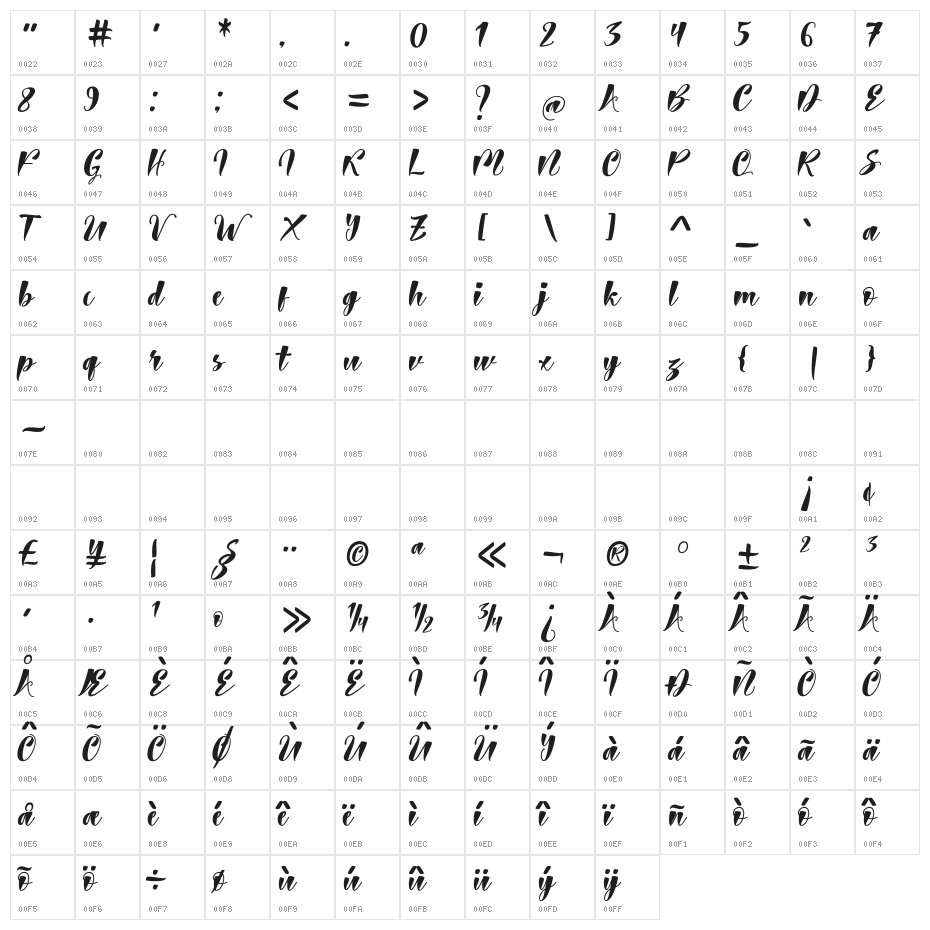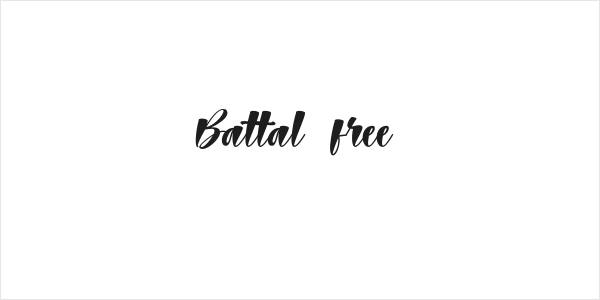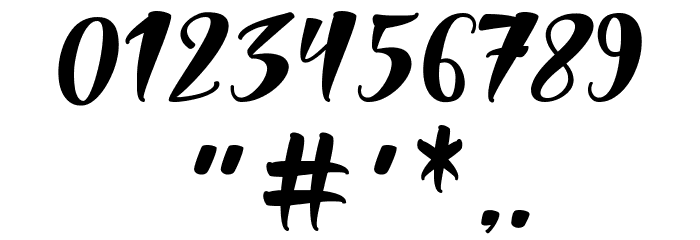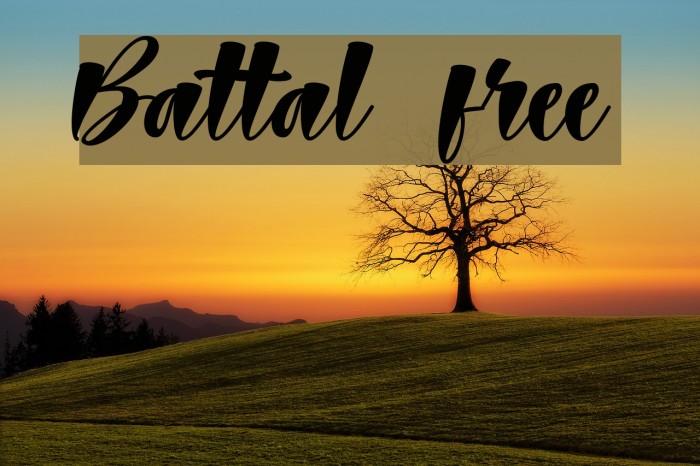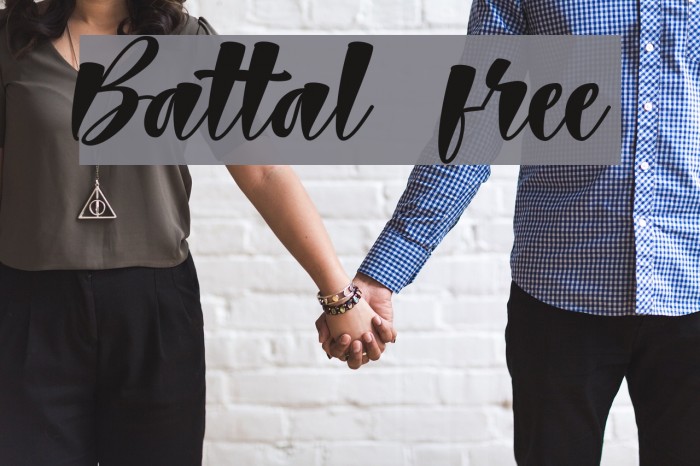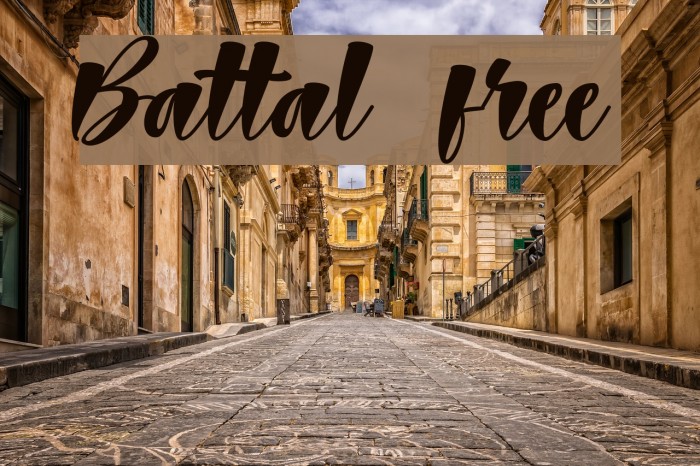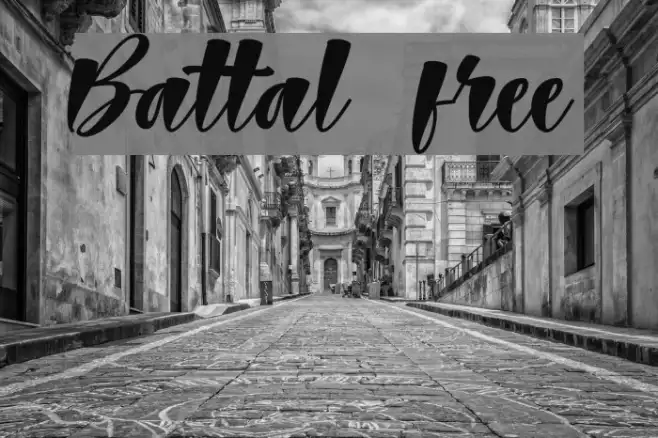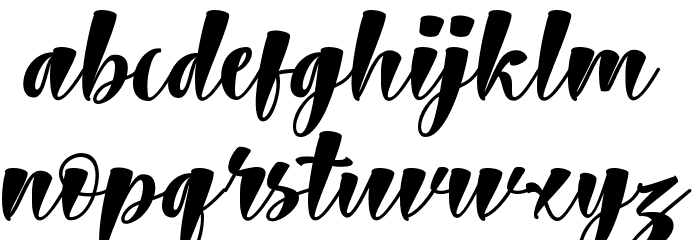
Battal free Font
Battal free Description
This font features a bold and expressive script style, characterized by its flowing, cursive letterforms. The strokes are thick and dynamic, giving a sense of movement and elegance. Each character is crafted with a sense of fluidity, making it ideal for creative and artistic projects. The uppercase letters are particularly striking, with dramatic flourishes and loops that add a touch of sophistication. The lowercase letters maintain a consistent style, ensuring readability while retaining the font's artistic flair. The numerals and special characters are designed to complement the overall aesthetic, making this font versatile for various design needs.
| Proposed Projects | Ideal for wedding invitations, branding, logos, and artistic posters. |